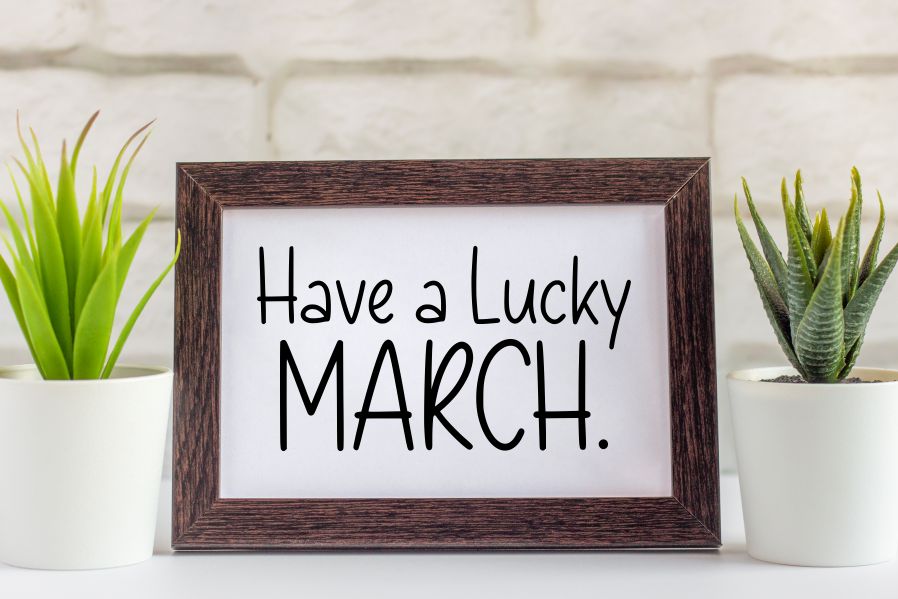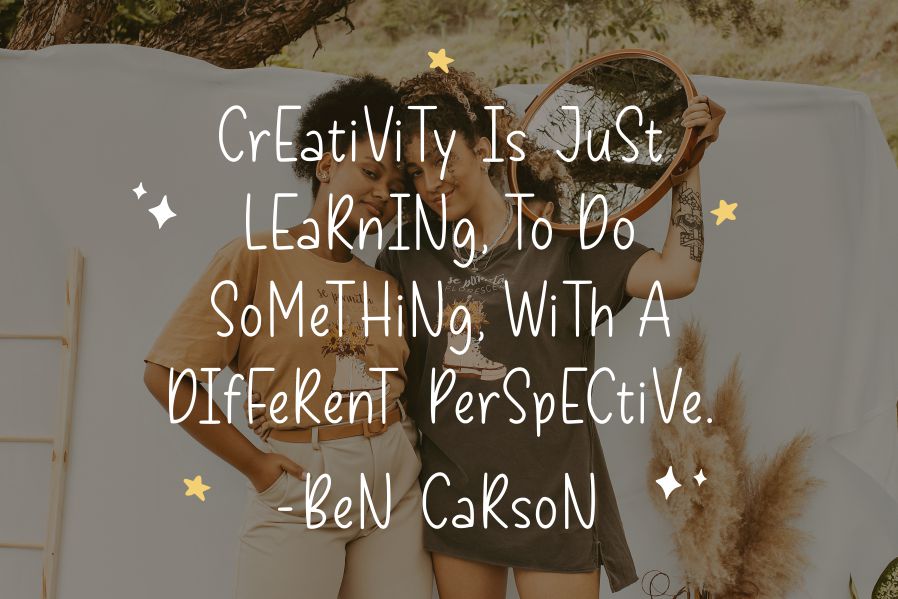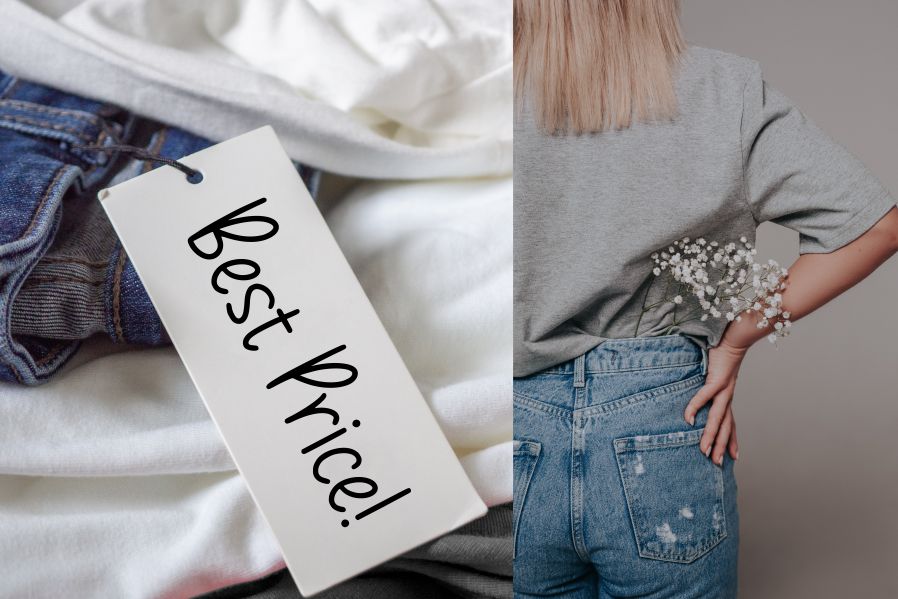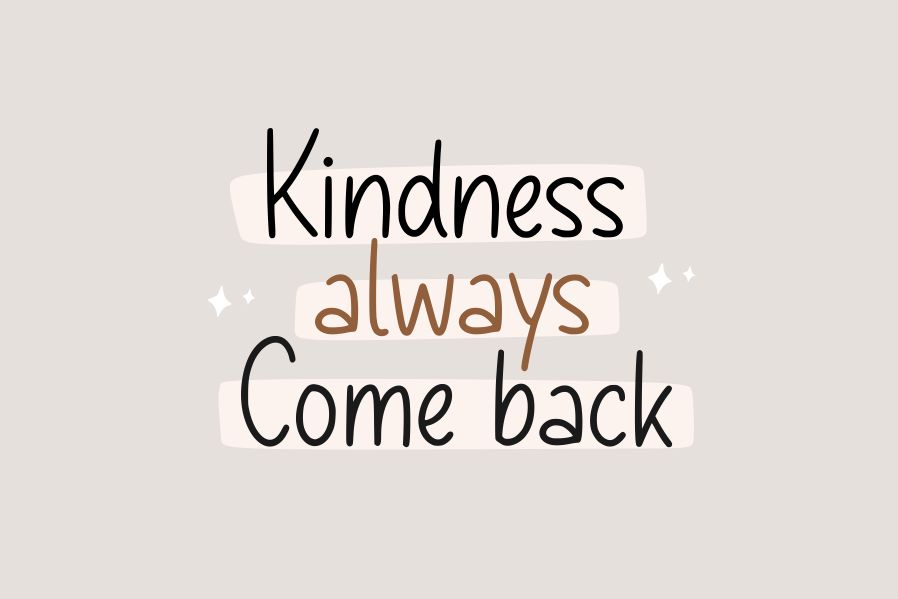
Malpicamoln Font
Malpicamoln Script Font
It’s a gorgeous and sweet handwritten font. Malpicamoln is perfect for product packaging, branding project, magazine covers, social media, wedding, or just used to express words above the background.